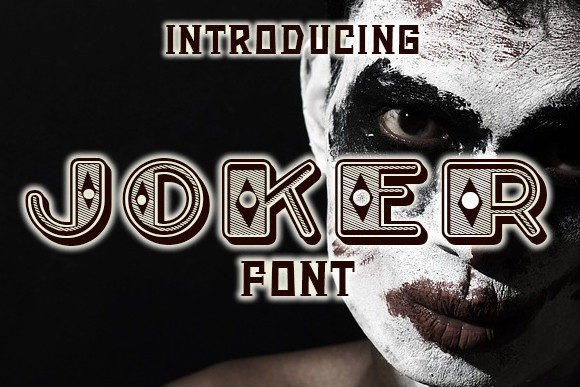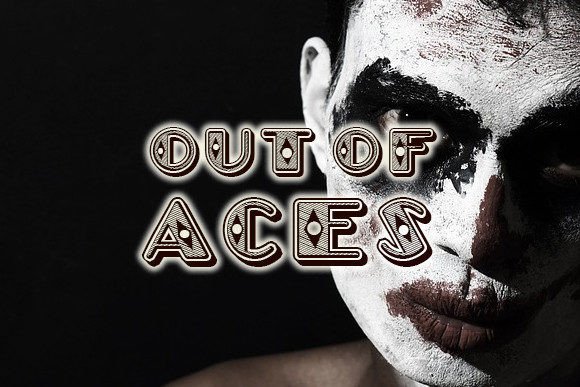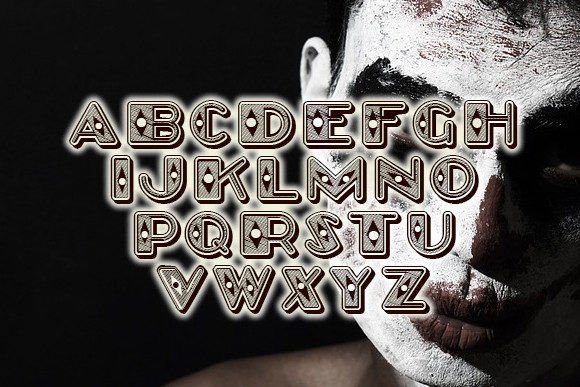
Joker Font
About the Joker Font
Unleash your creativity with Joker Font, a versatile font perfect for a wide range of applications. Joker is a transparent decor-typeface.
It will look perfect on any shirt, poster, or flyer.
Joker’s playful, slightly mischievous personality makes it ideal for headlines, short taglines, and branding elements where a touch of whimsy is desired. It works exceptionally well on packaging for novelty items, posters for events with a fun atmosphere, and social media graphics. Avoid using it for large blocks of text or body copy; its decorative nature compromises readability in extended use.
For a balanced design, pair Joker with a clean sans-serif like Open Sans for body text, providing contrast and enhancing readability. Alternatively, a classic serif such as Garamond could add a touch of sophistication, tempering Joker’s playful energy for a more refined overall aesthetic.
Consider projects aimed at a younger demographic or brands with a quirky, unconventional identity. Avoid using Joker for projects requiring seriousness or professionalism; its decorative style might detract from the intended message.